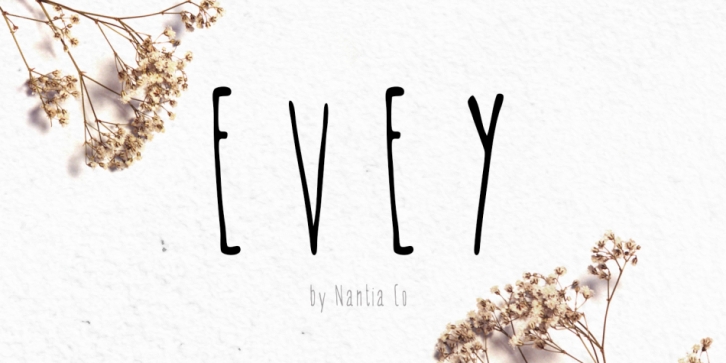
Evey is a hand drawn font family. This typeface has two styles and was published by Konstantina Louka.
Evey is a revolutionary multilingual handwritten font. It is the font of November.
Evey is a hand-drawn decorative sans serif font that includes 474 glyphs. The fonts include Latin, Greek and Cyrillics characters, punctuation marks, diacritics and numbers.